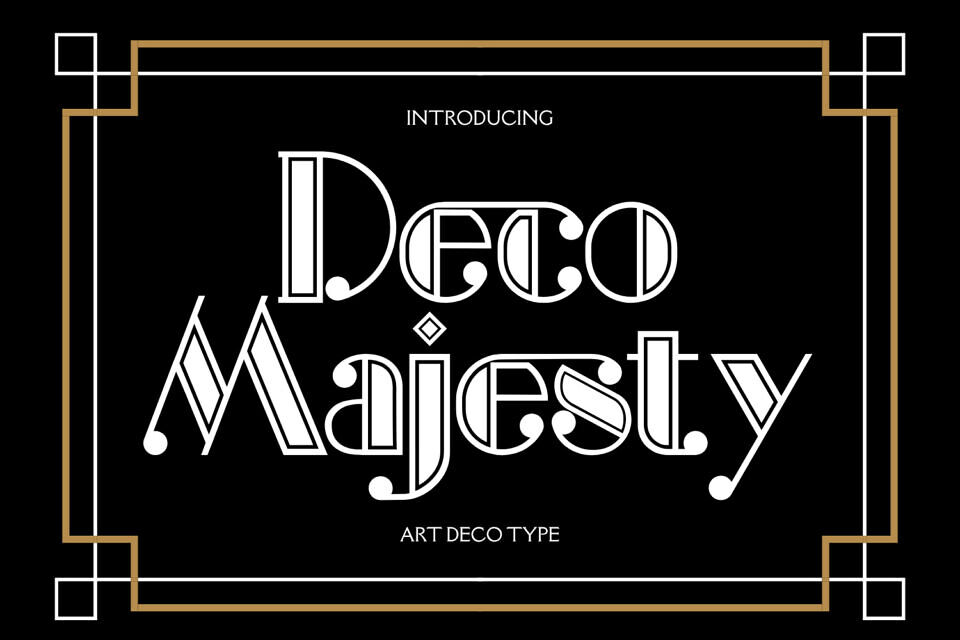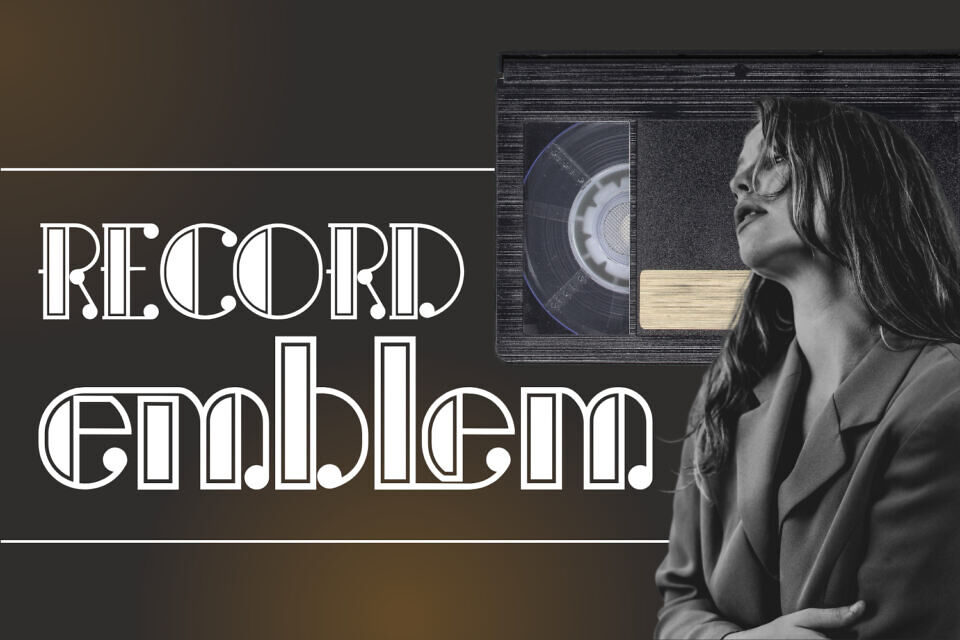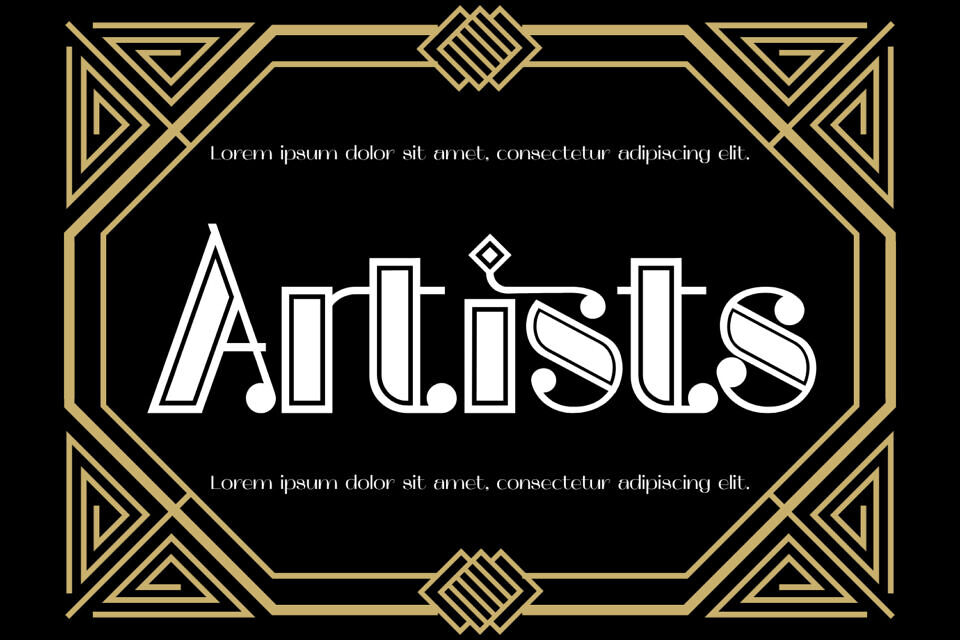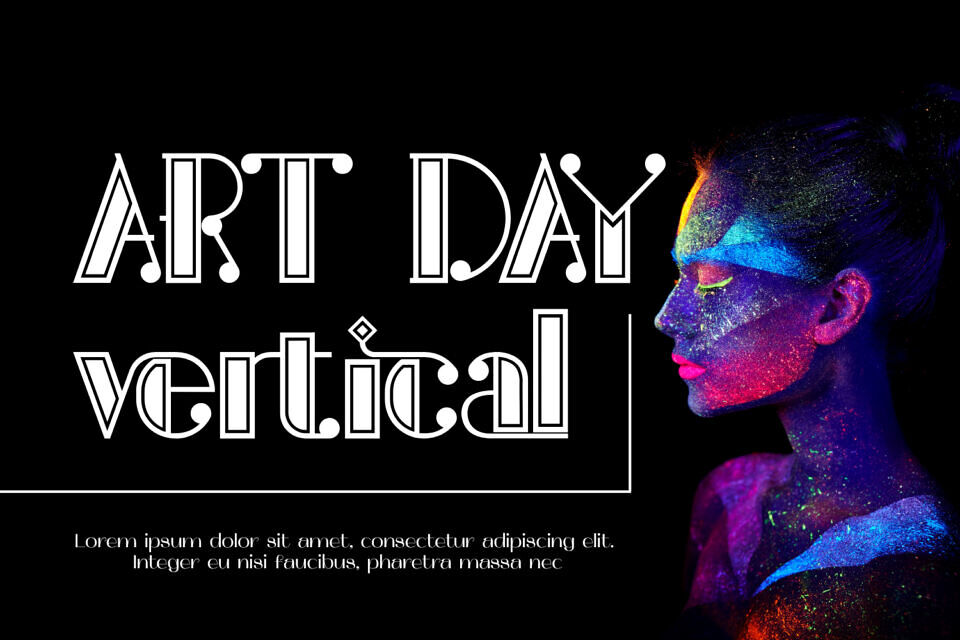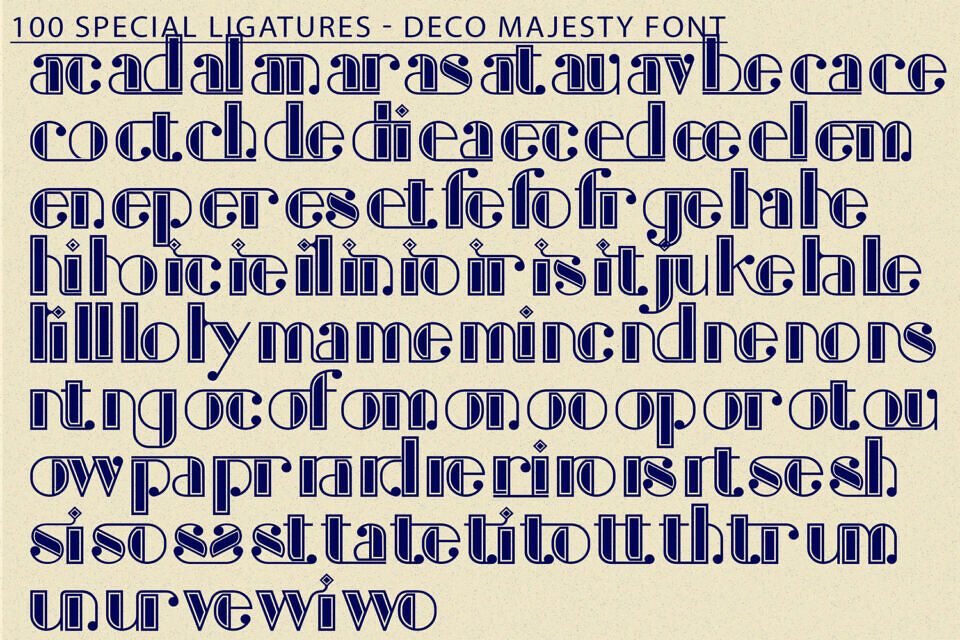
Deco Majesty Font is a luxurious Art Deco-inspired display typeface that blends geometric structure with refined elegance. Featuring bold vertical contrast, symmetrical terminals, and ornamental ball-end details, this font evokes a timeless sophistication reminiscent of 1920s architecture, classic cinema, and vintage fashion.
Each letterform is carefully crafted to balance decorative flair with readability, making it perfect for high-end branding, editorial headlines, luxury packaging, or vintage-themed designs.